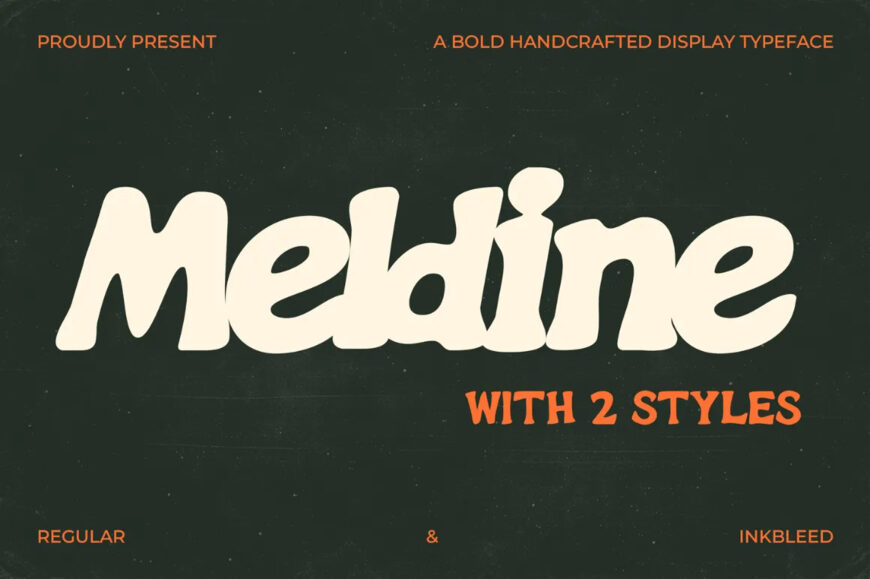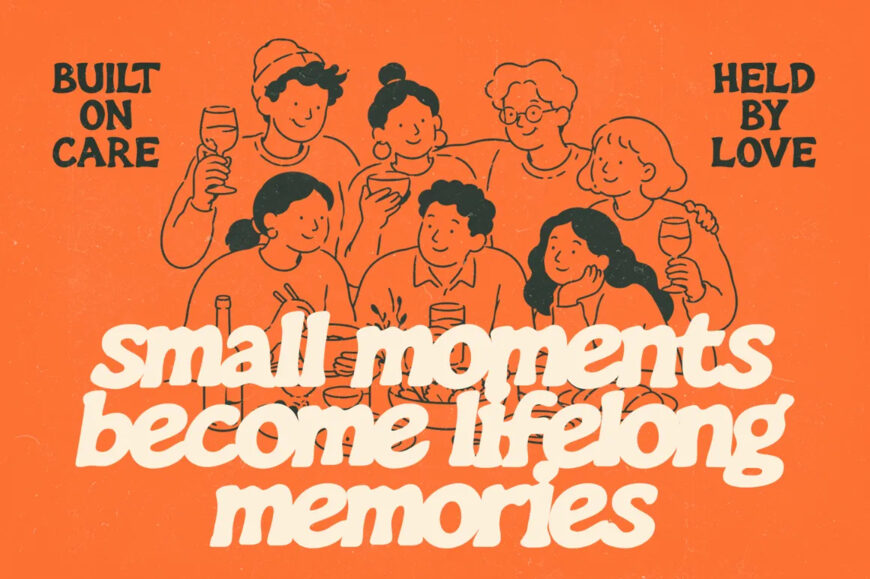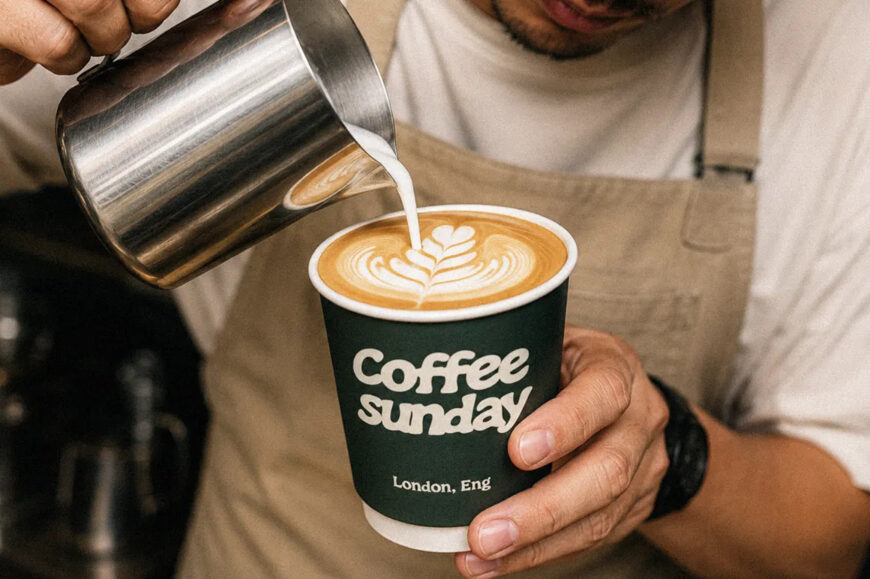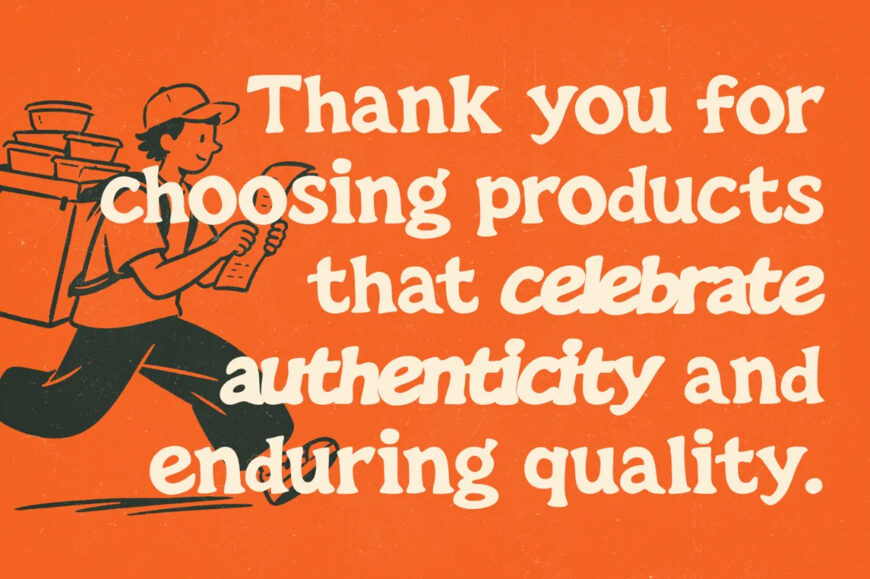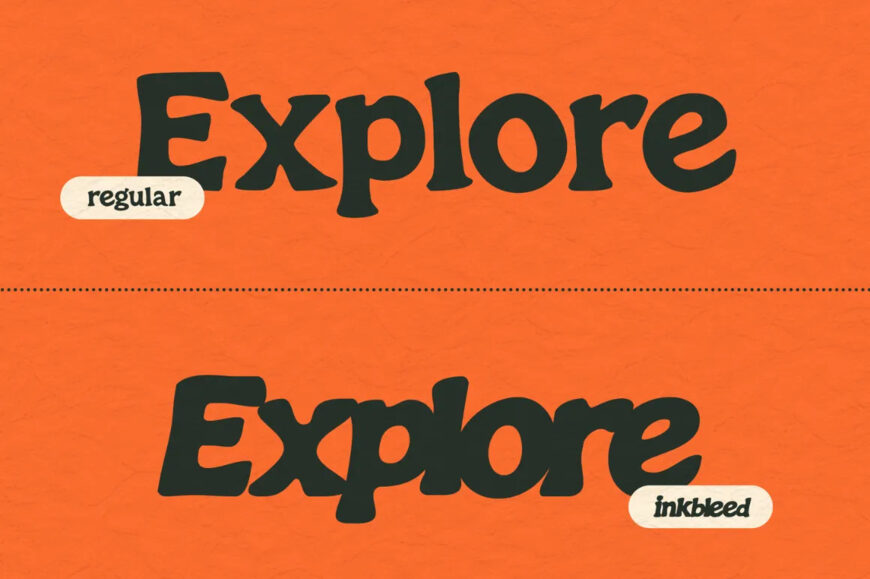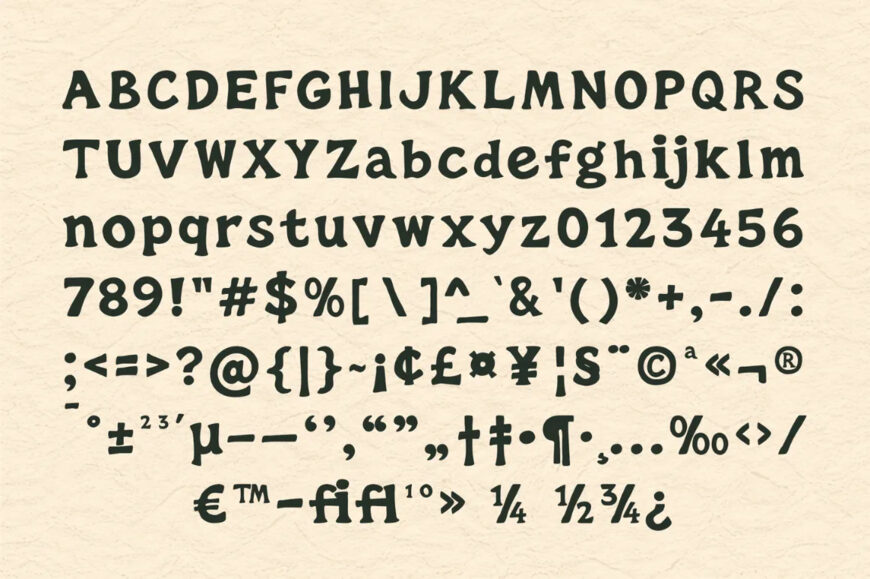
Meldine is a bold handcrafted display typeface with a smooth, playful character and organic hand-drawn feel. Its chunky shapes and natural curves give every word a strong yet friendly personality, making it perfect for posters, branding, packaging, apparel, logos, and eye-catching headlines.
Meldine comes in 2 styles — Regular and Inkbleed. The Regular style delivers a clean handcrafted look, while Inkbleed adds a more textured, imperfect print feel for extra character and authenticity.